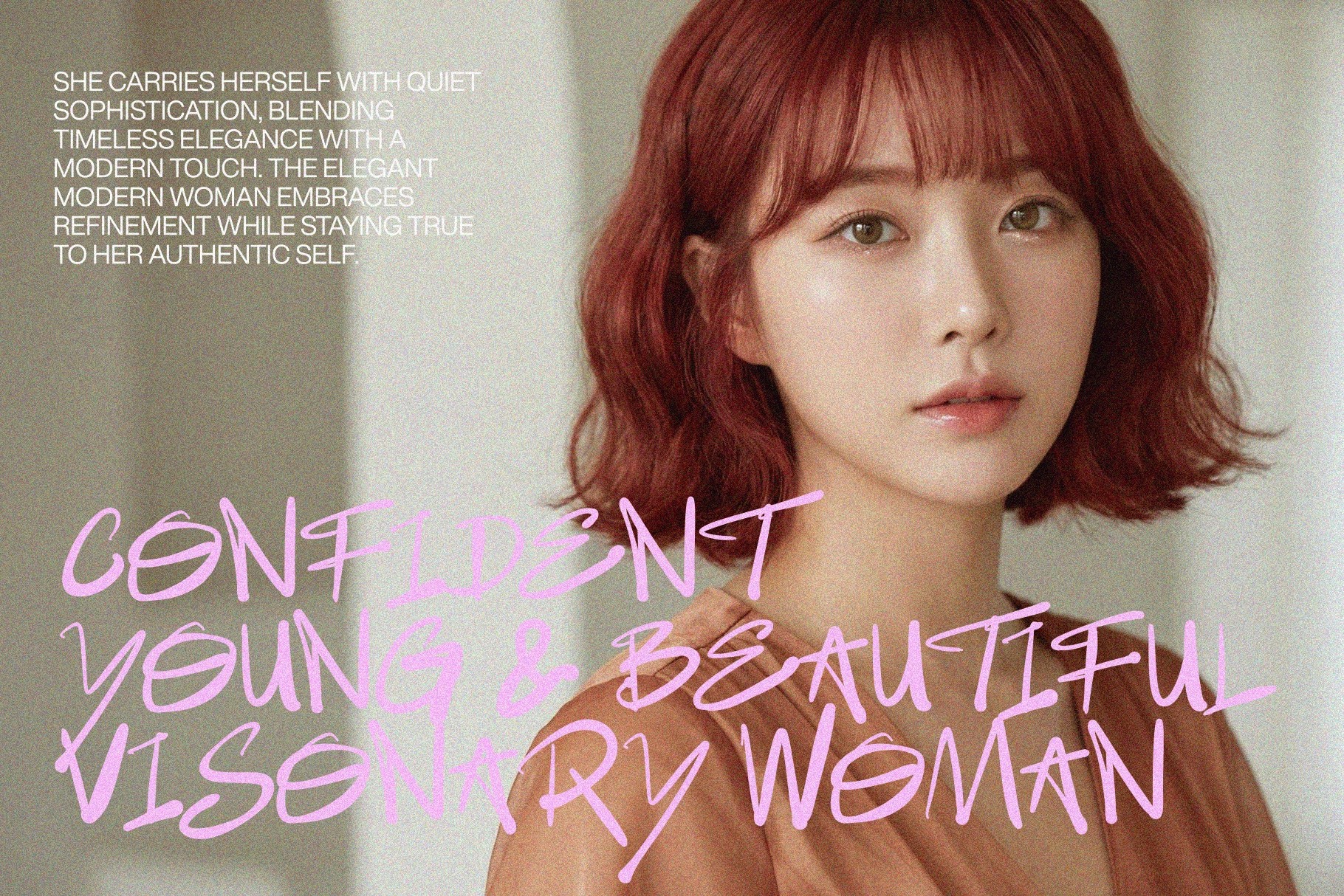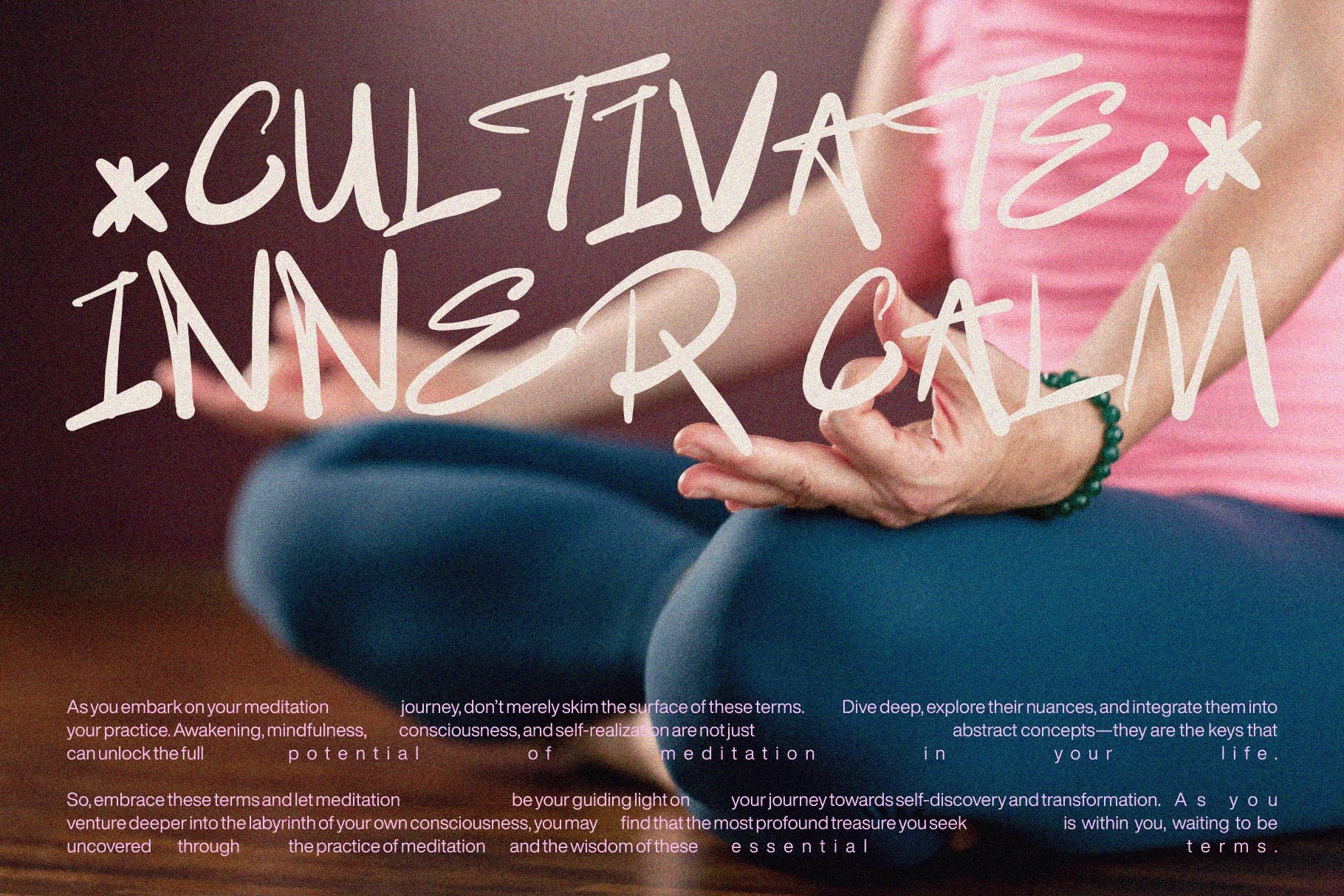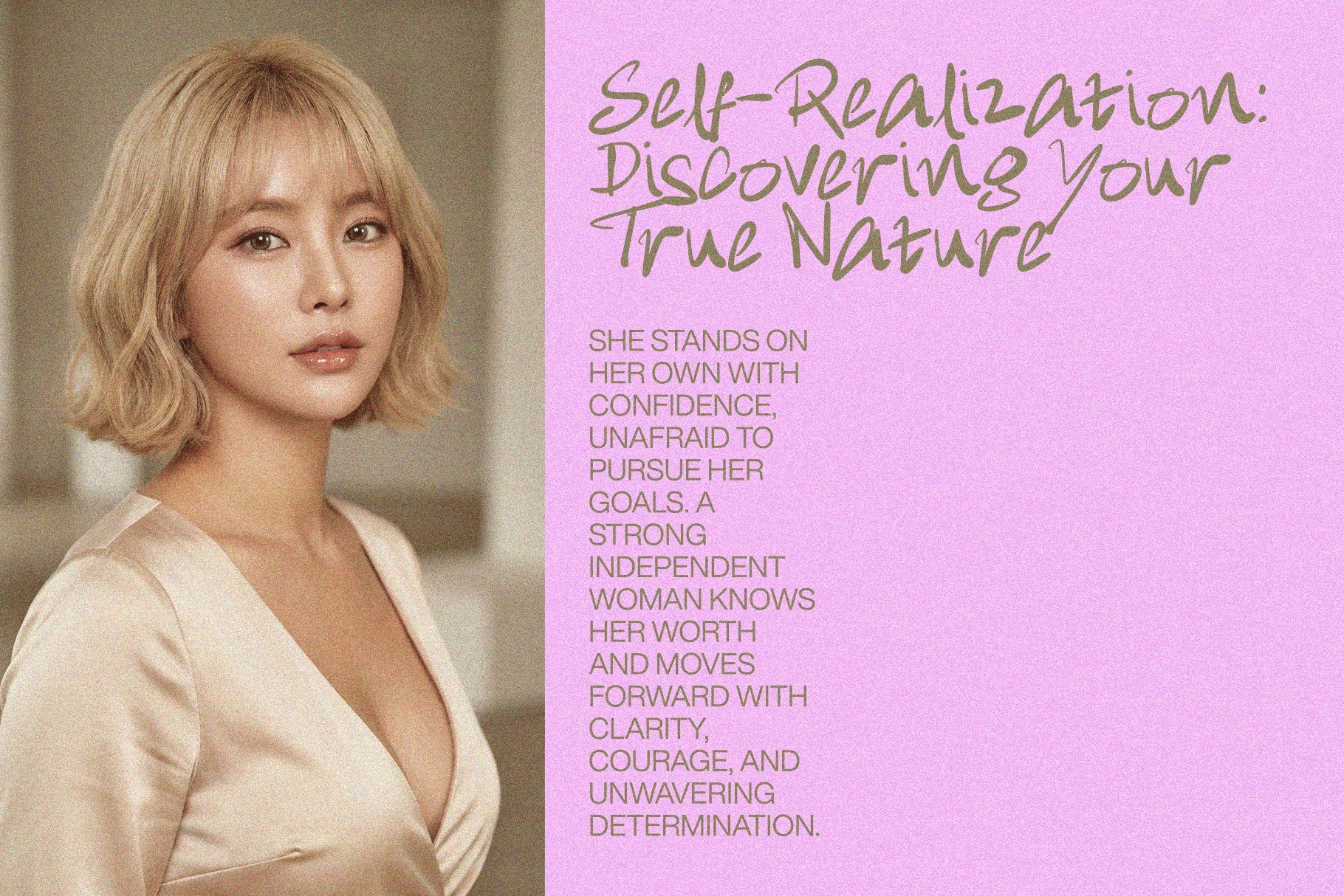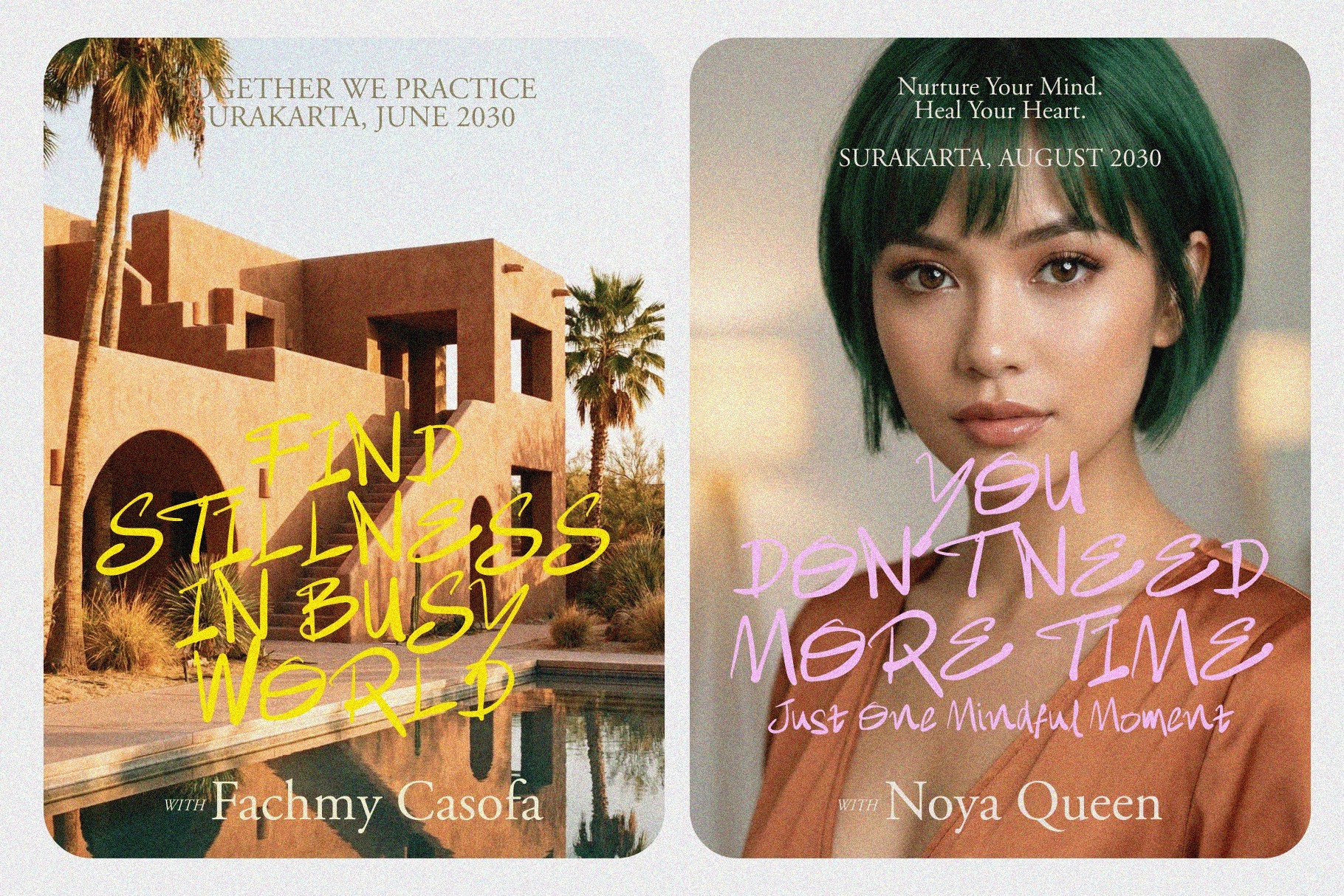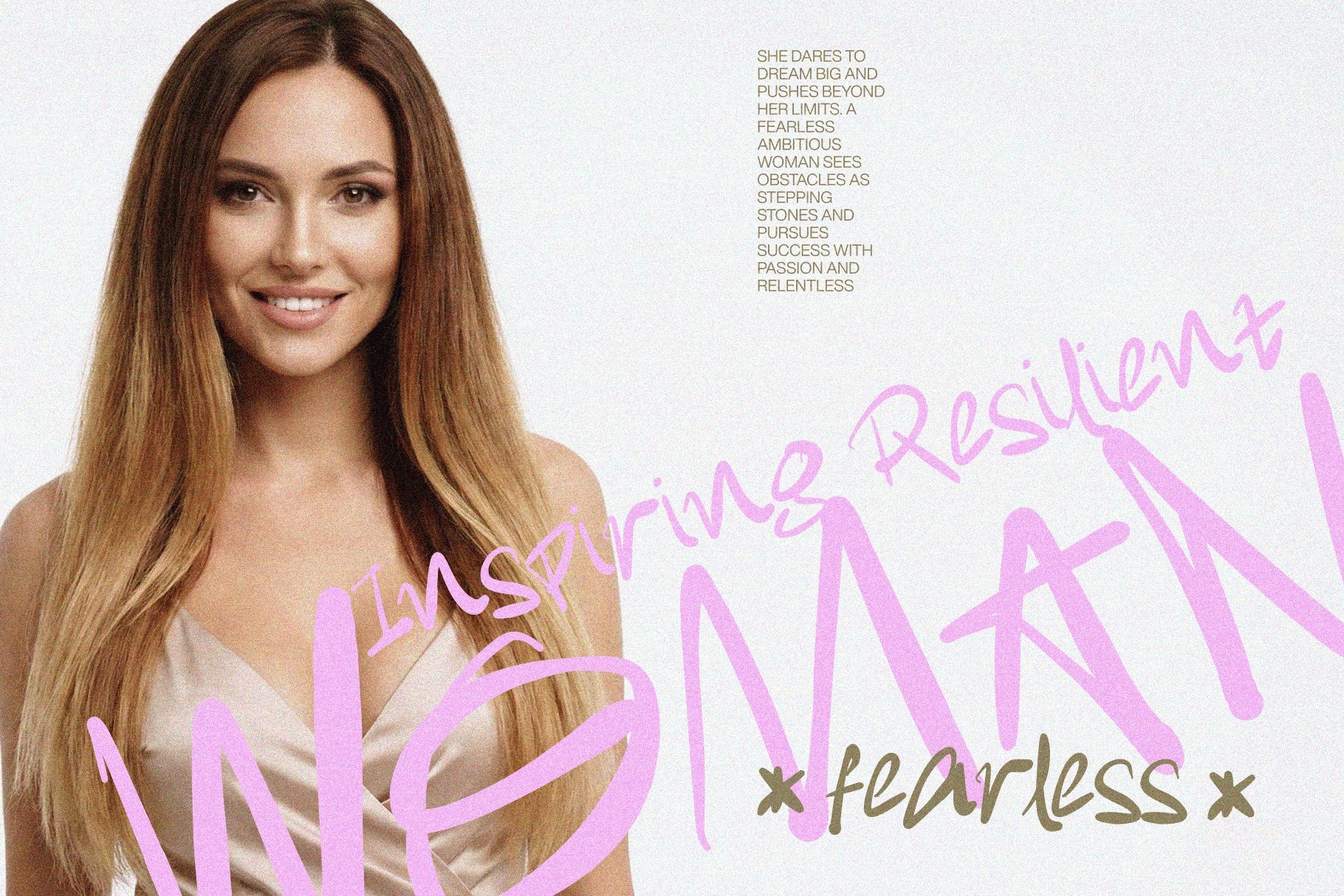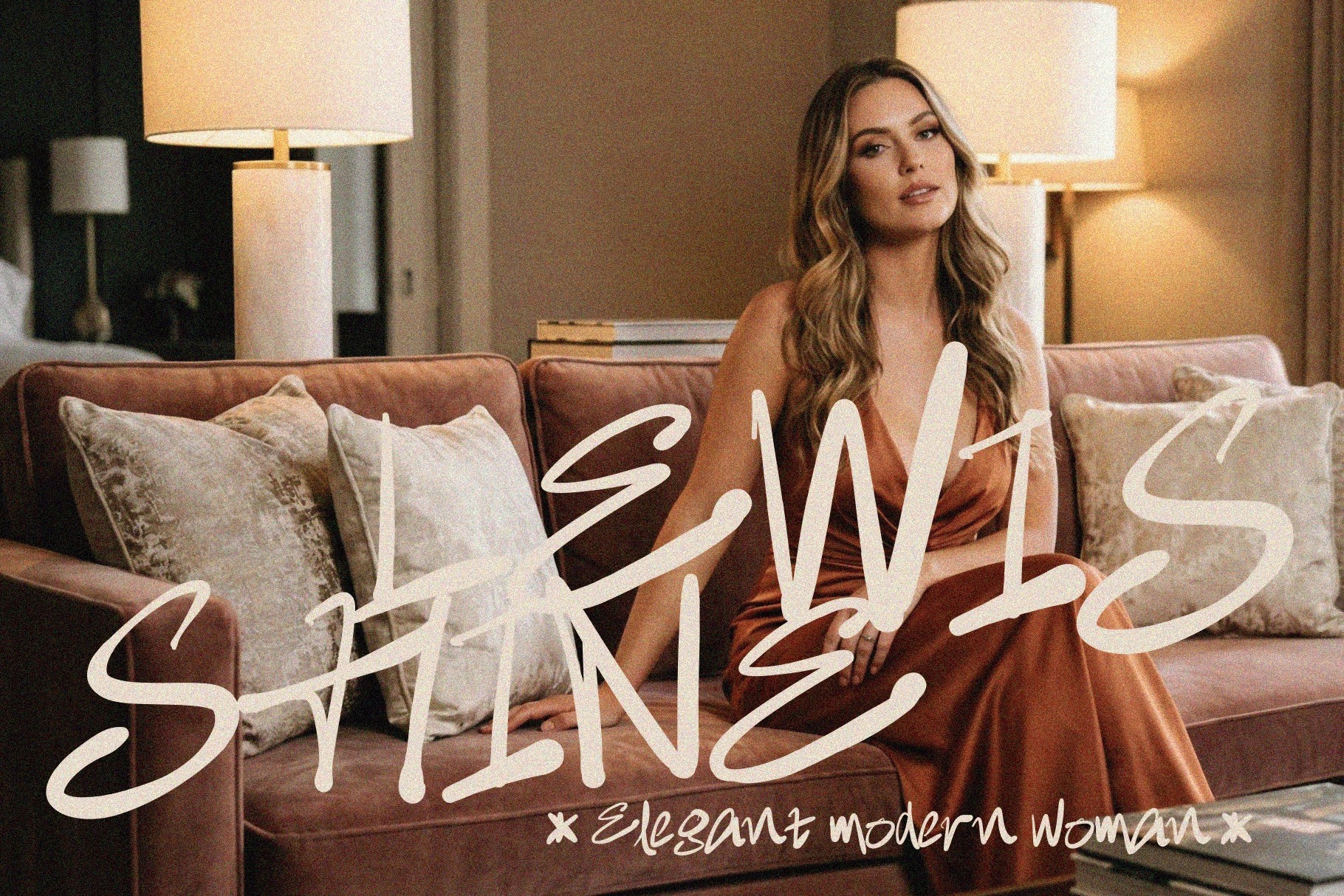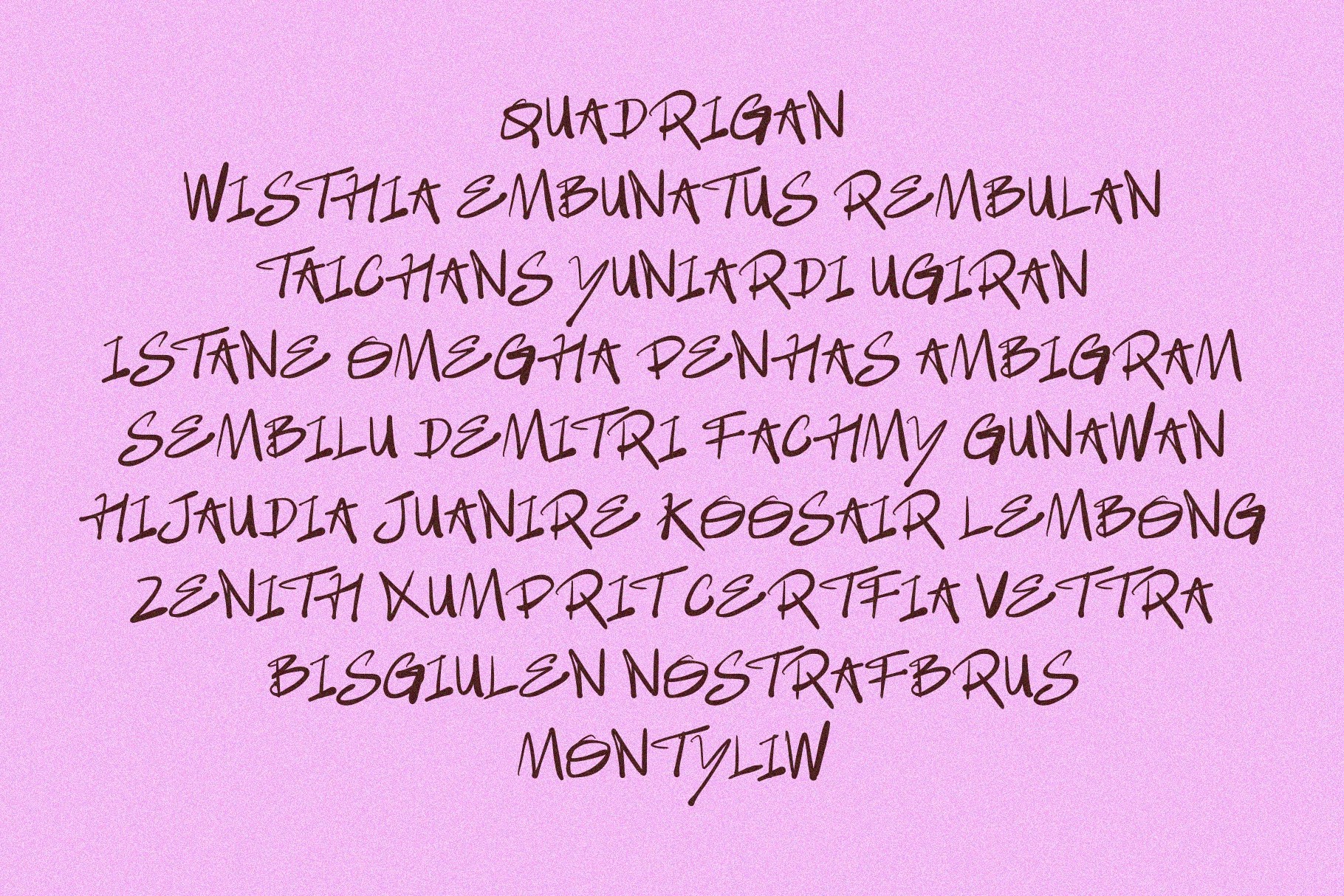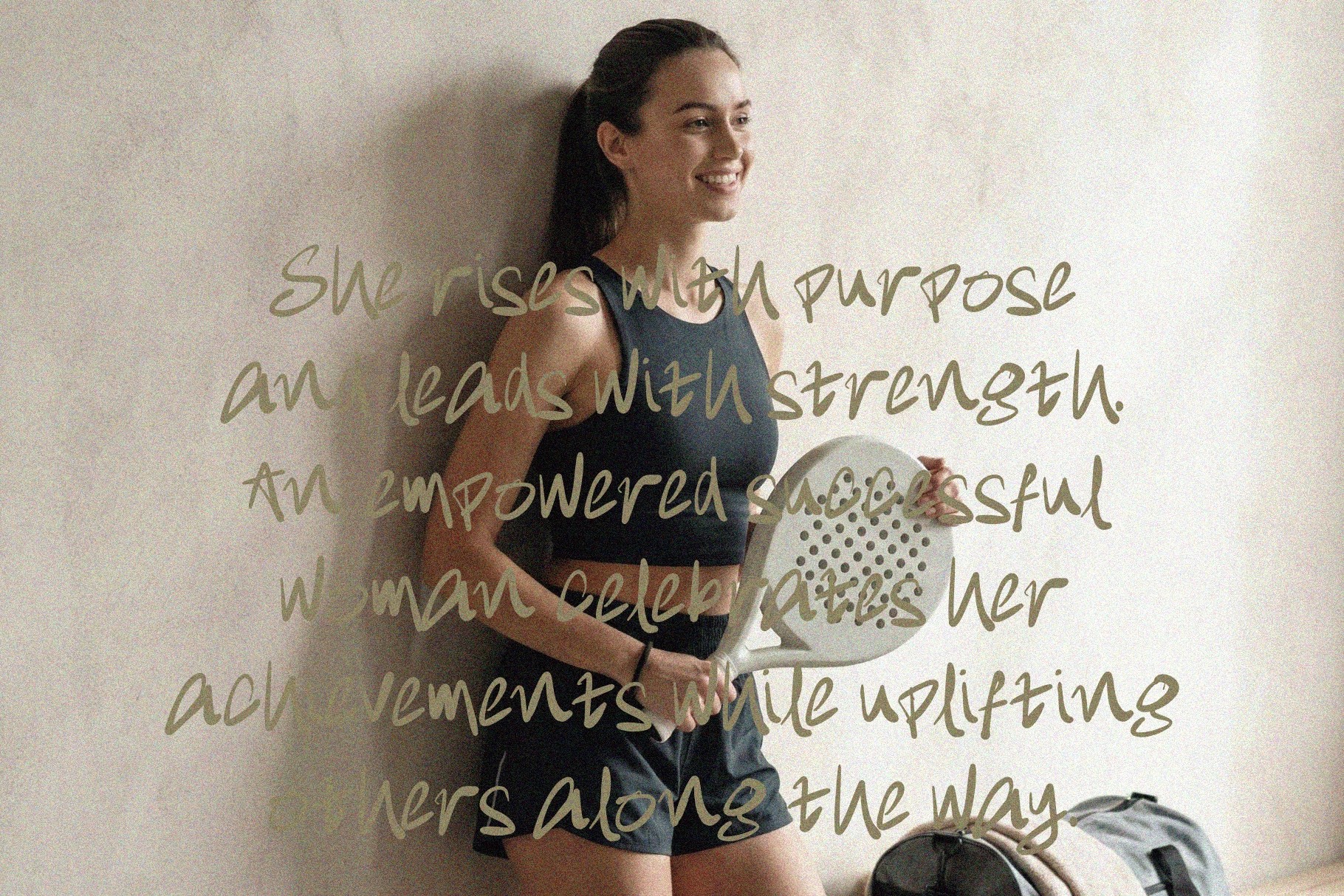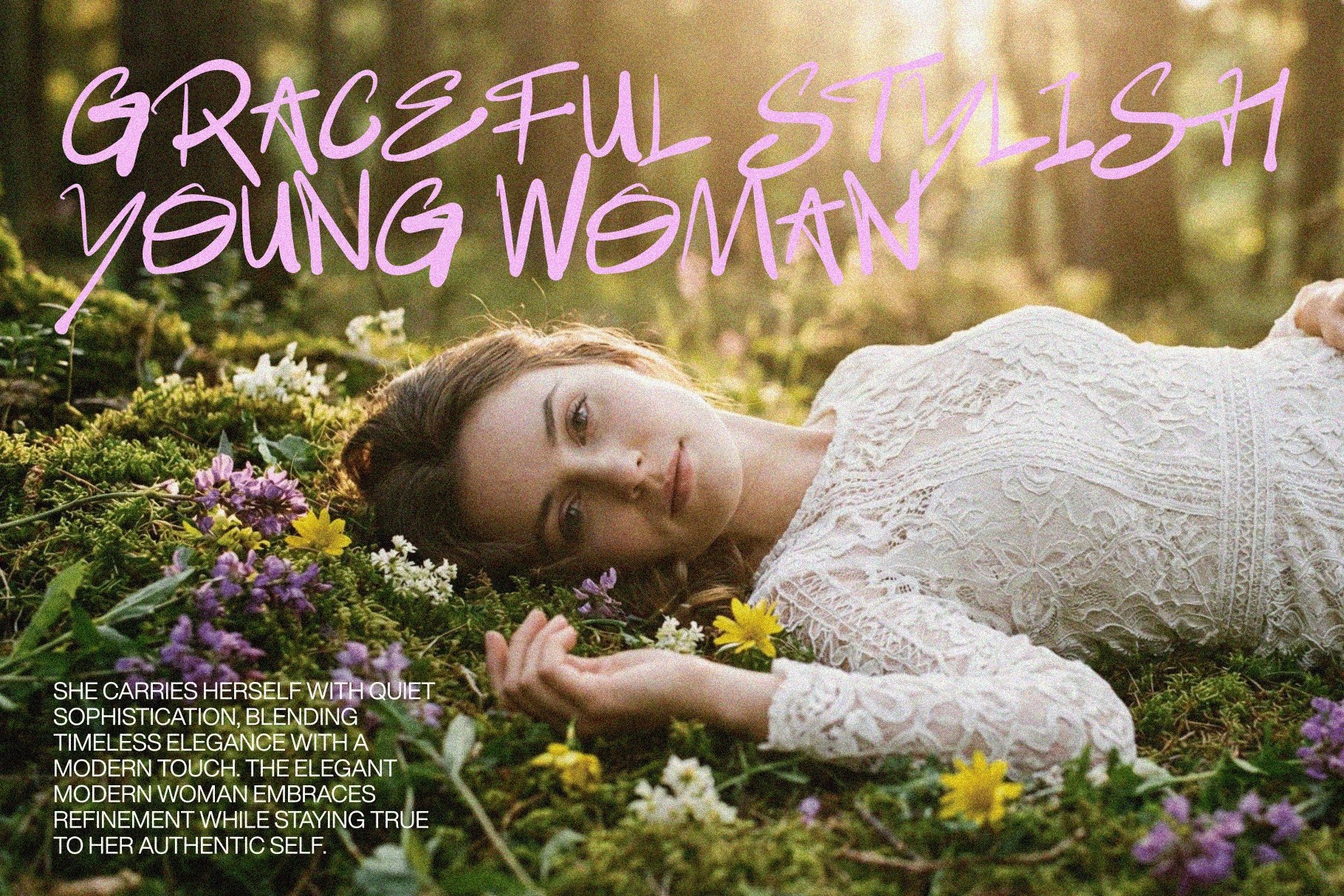
NEW SIQON — Expressive Handdrawn Brush Font
New Siqon
A bold brush font with fast strokes, loose curves, and raw handwritten pressure across every character. Its scratchy rhythm gives posters and headlines a sharp, energetic look, with enough attitude for streetwear graphics, sports visuals, and music-led branding.
NEW SIQON works for event posters, team graphics, album covers, streetwear labels, logo concepts, social media graphics, editorial titles, product packaging, skate merch, festival promos, YouTube thumbnails, and more. The uppercase and lowercase sets keep the lettering expressive across big statements, quick captions, and rough-cut brand marks.